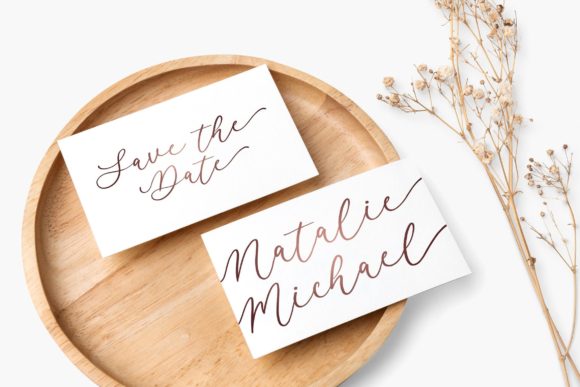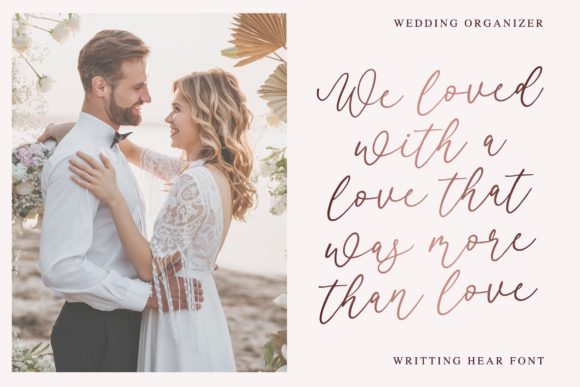
Writting Heart Font
db-ku.com - Script & Handwritten -- Writting Heart is a beautiful and stylish script font. Add it confidently to your projects, and they will be impeccable.